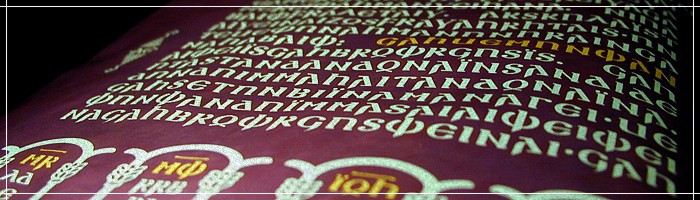
Silubr Font
SILUBR (Goth. “silver”) is a bold and contrasting Gothic uncial script related to the hand script of ancient Gothic codices. Its name is derived from the silver ink used for the Codex Argenteus. Silubr is probably the most original of all the fonts offered here. It includes 35 characters. This is quite a modest number, but the missing part can easily be complemented from other bold typefaces (e.g. “Poster Bodoni”).
To allow writing with this font in programmes that don’t support the high Gothic Unicode range (as for example MS Word), the Gothic characters are mapped to the Latin range as well. And in order to render texts in silubr which have originally been set from such of my fonts that distinguish between lower case and upper case letters, I have laid this font’s majuscules to the minuscule range, too.